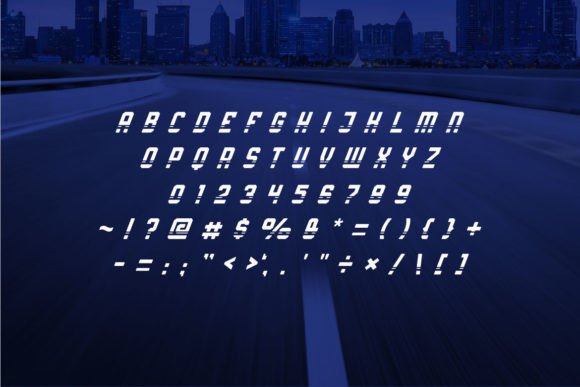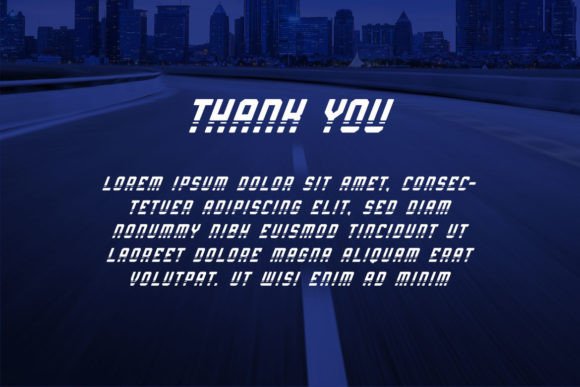
Introduction to Right Way Font
Right Way is a cool and unique display font.
No matter the topic, this font will be an incredible asset to your fontsโ€™ library, as it has the potential to elevate any creation .
Key Features of Right Way Font
Why Choose Right Way Font?
Right Way Font offers exceptional quality and versatility, making it a valuable addition to your design toolkit. Whether you’re creating for personal projects or commercial use, Right Way Font delivers professional results.